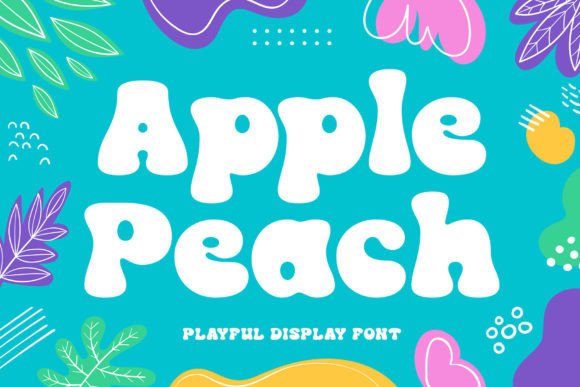
Introducing Apple Peach Font, a delightful and playful display font that adds a touch of charm to any project. Created by roomspace, this font is not only perfect for posters, but also versatile enough to suit contemporary designs. With its chubby and childish appeal, Apple Peach Font brings a sense of fun and creativity to your creations.
With its fat and smooth typeface, Apple Peach Font ensures optimum legibility, making it a breeze for your audience to read and understand your message. Whether you're designing a captivating poster, a captivating logo, or even a captivating website, this font will surely make your content stand out from the crowd.
One of the major advantages of Apple Peach Font is its flexibility. It can adapt to various product designs, catering to your unique needs and preferences. From playful children's books to trendy branding materials, this font effortlessly adds a touch of personality and character.
Imagine the joy and excitement your audience will feel when they see the delightful curves and intricate details of Apple Peach Font. It evokes a sense of nostalgia, reminding us of carefree childhood days and whimsical adventures. This emotional connection will undoubtedly captivate your target audience and leave a lasting impression.
Not only does Apple Peach Font offer visual appeal, but it also speaks to the heart. Its vibrant and lively nature injects energy into your designs, creating a positive and optimistic atmosphere. Whether you're promoting a product or sharing an important message, this font will help you convey your ideas with enthusiasm and authenticity.
Don't settle for ordinary fonts when you can have the extraordinary. Apple Peach Font is the perfect choice for those who dare to be different and want to make a statement. Its unique style and captivating presence will elevate your designs to new heights, ensuring that your content leaves a lasting impact on your audience.